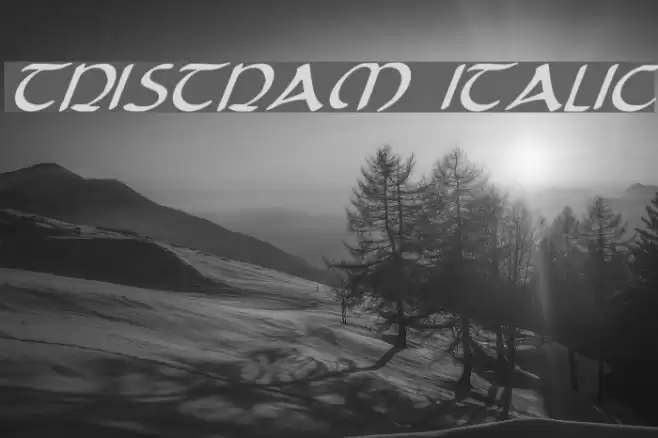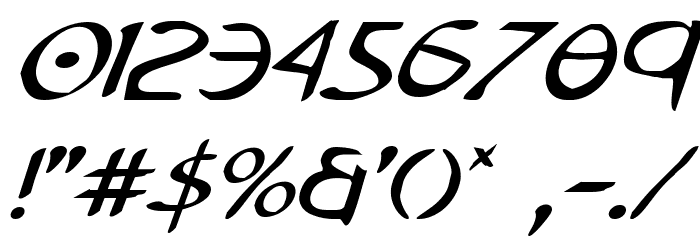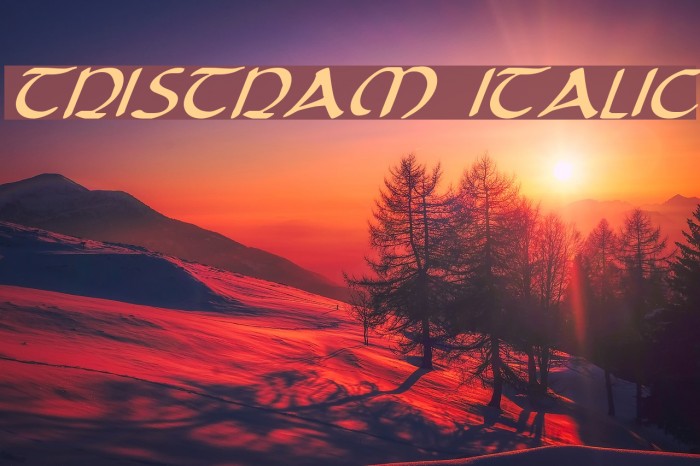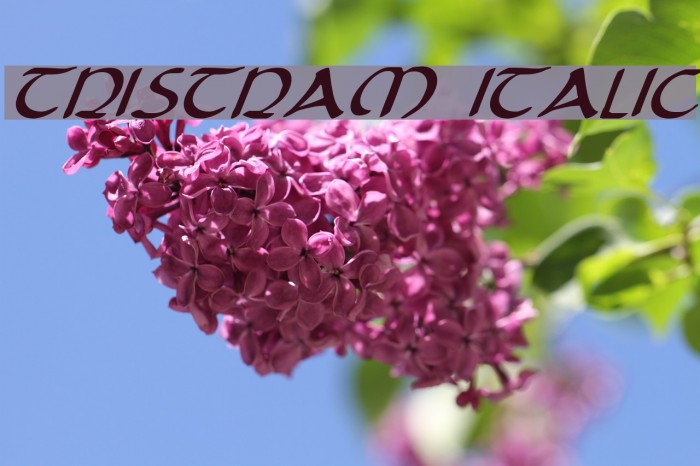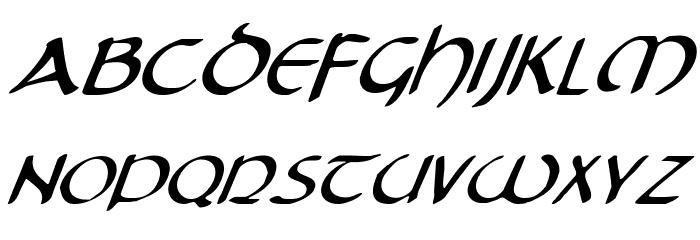
Tristram Italic Font
Tristram Italic Description
This font exhibits a dynamic and flowing style, characterized by its italicized, cursive appearance. The letters are elegantly slanted, with smooth curves and sharp edges that create a sense of movement and sophistication. The uppercase and lowercase letters maintain a consistent style, with distinctive flourishes that add a touch of flair. The numerals are uniquely styled, complementing the overall aesthetic. Special characters are designed with the same attention to detail, ensuring a cohesive look across all glyphs. This font's artistic nature makes it suitable for creative and expressive design projects.
A dynamic, italicized cursive font with elegant curves and sharp edges from Gothic fonts.
- Proposed Projects: Ideal for invitations, branding, artistic posters, and creative design projects.
- Use Case: Logos, Headlines, Artistic designs